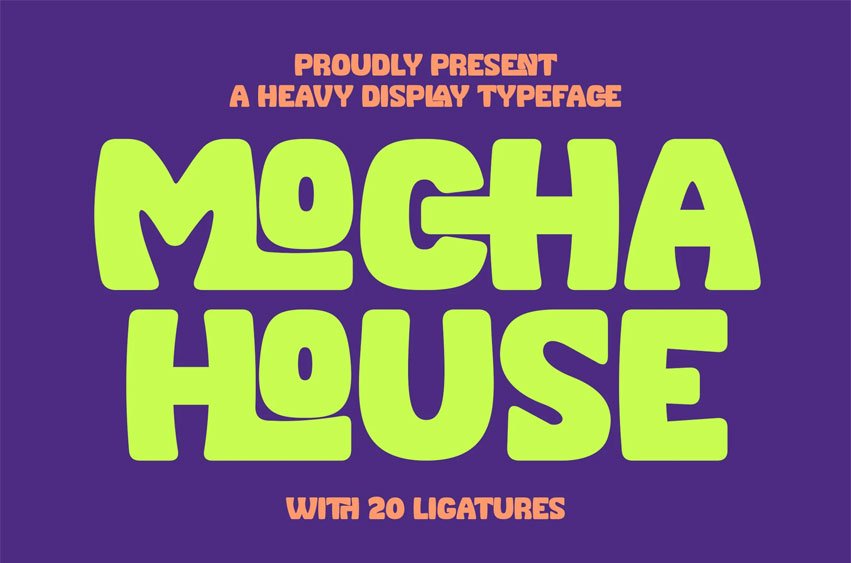
Mocha House Font
Mocha House Font is a bold and playful heavy display font designed to bring energy, personality, and a modern retro vibe into your designs.
With its chunky shapes, smooth curves, and slightly quirky character forms, this typeface delivers strong visual impact while maintaining a friendly and approachable feel.
Feature:
• Uppercase
• Lowercase
• Ligatures
• Numerals
• Punctuation
Perfect For:
• Fast food branding
• Snack packaging
• Kids brand design
• Café menus
• Food promotions
• Social media content
• Poster headlines
• Product packaging
• Street food branding
• Fun advertising